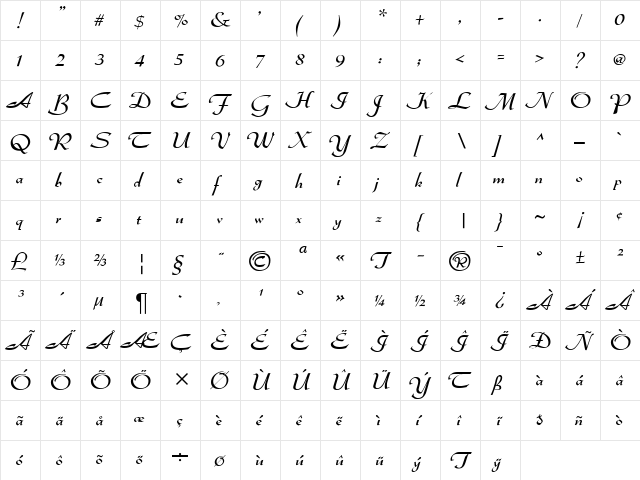
DS Admiral Regular
| Foundry | Typographer Mediengestaltung |
| Designer | Typographer Mediengestaltung |
Design Context for DS Admiral Typeface
DS Admiral is a composed and adaptable typeface that performs quietly and consistently across a wide range of design contexts.